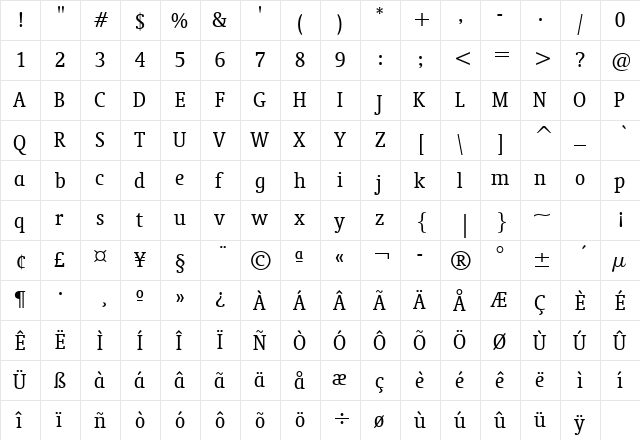
Oranda Condensed GX BT Regular
Design Context for Oranda Condensed GX BT Typeface
Oranda Condensed GX BT takes a measured approach to typography — its balanced proportions and neutral character make it a reliable workhorse for both digital and print work. Its narrow stance lets it pack a punch even in space-constrained designs.